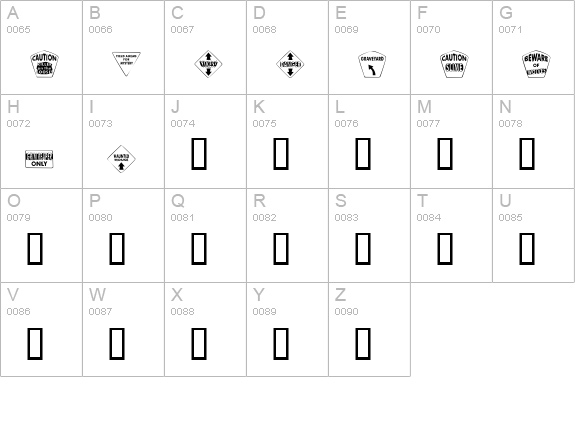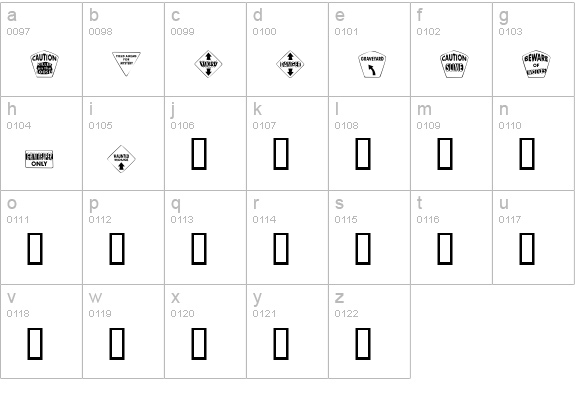
KR Halloween Signs Two Font Details
Introducing KR Halloween Signs Two, a spooky and playful font perfect for all your Halloween-themed projects! This font features whimsical and eerie characters that will add a touch of frightful fun to your designs. Whether you're creating invitations, posters, or social media graphics for the Halloween season, KR Halloween Signs Two is sure to make a hauntingly good impression. What's even better is that KR Halloween Signs Two is completely free to download! Yes, you read that right - this fantastic font is freely available at FontsMarket.com for you to use in your personal and commercial projects. So go ahead and bring a touch of Halloween magic to your designs with KR Halloween Signs Two - download it today and let your creativity run wild!